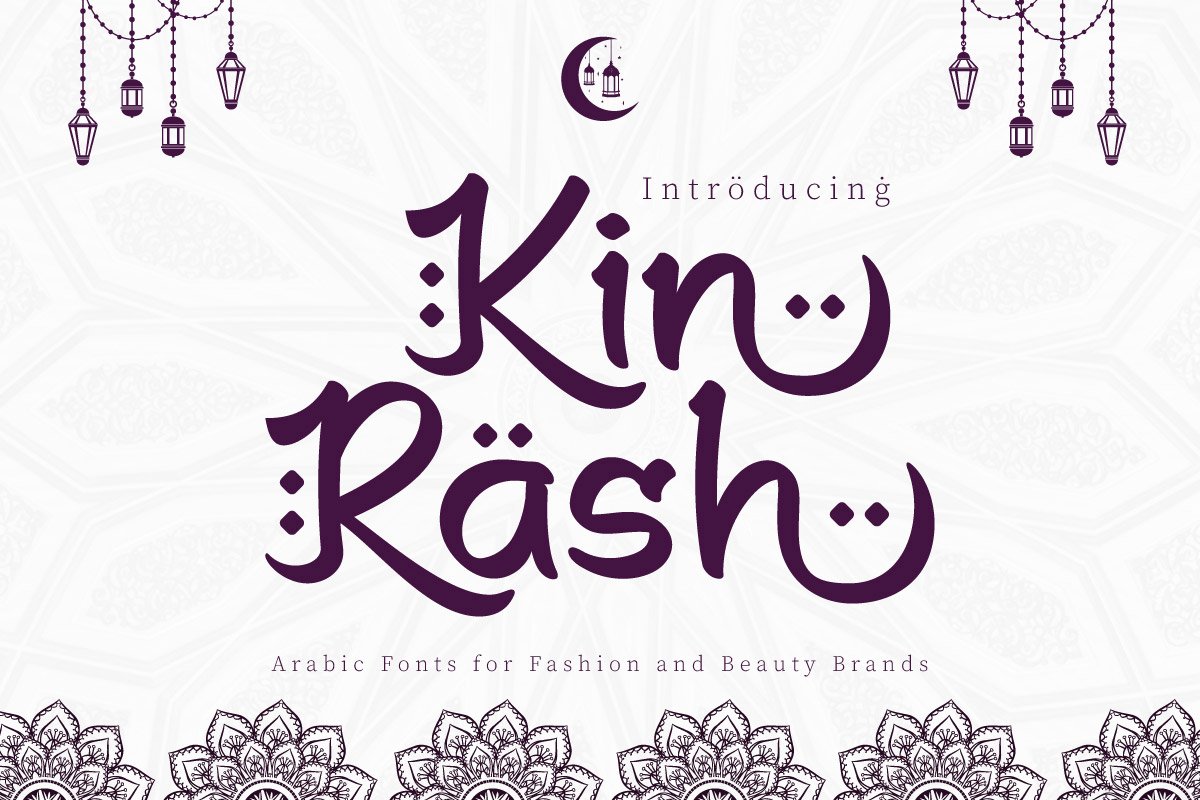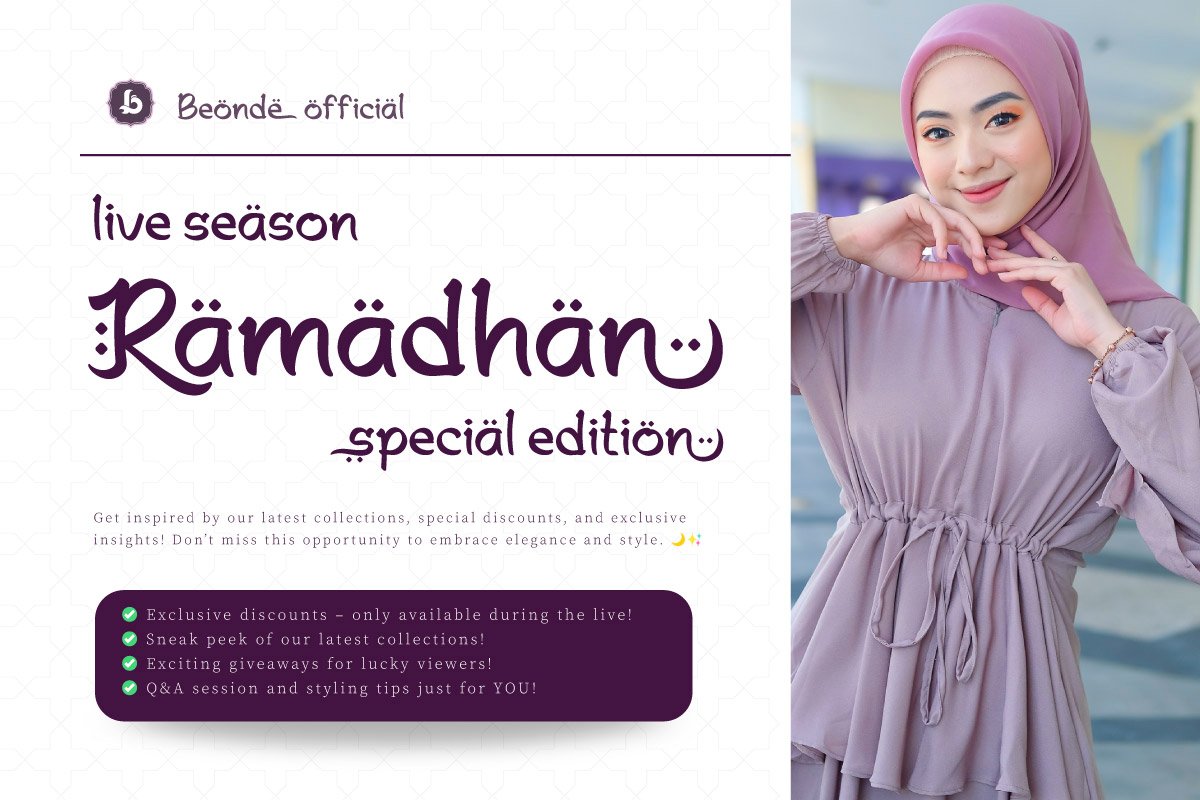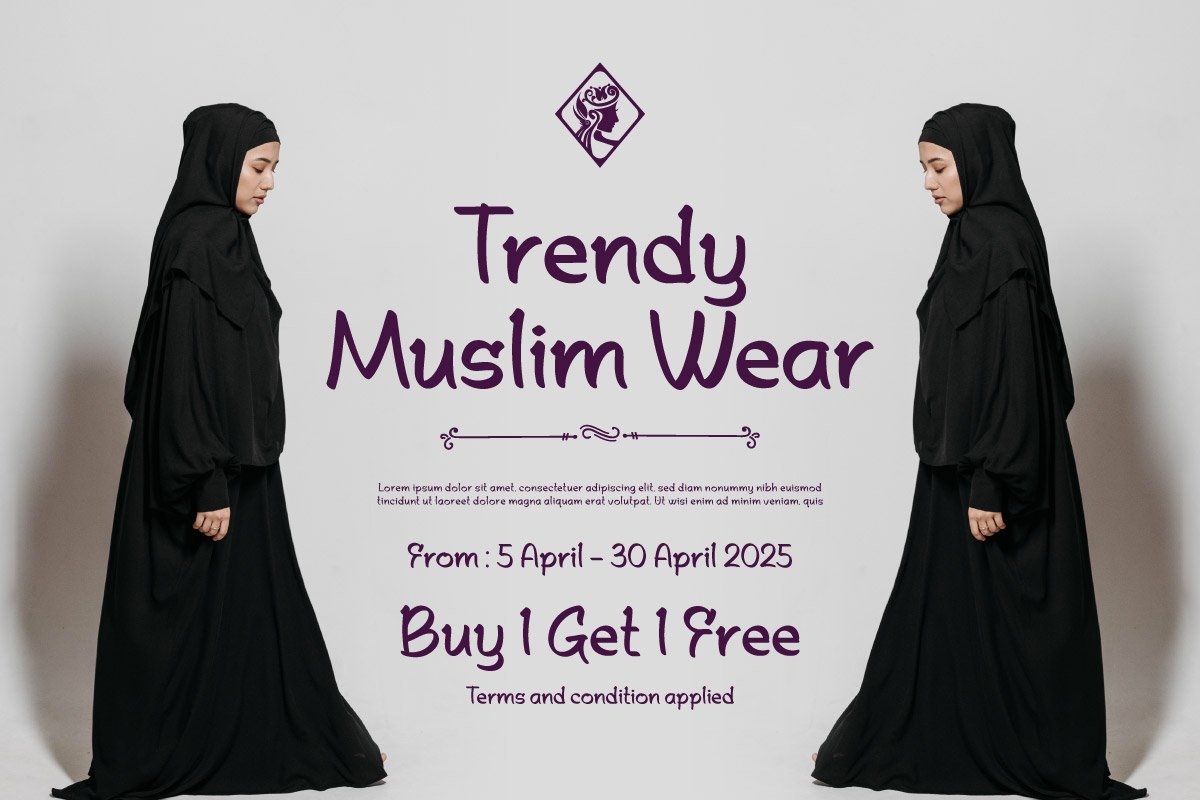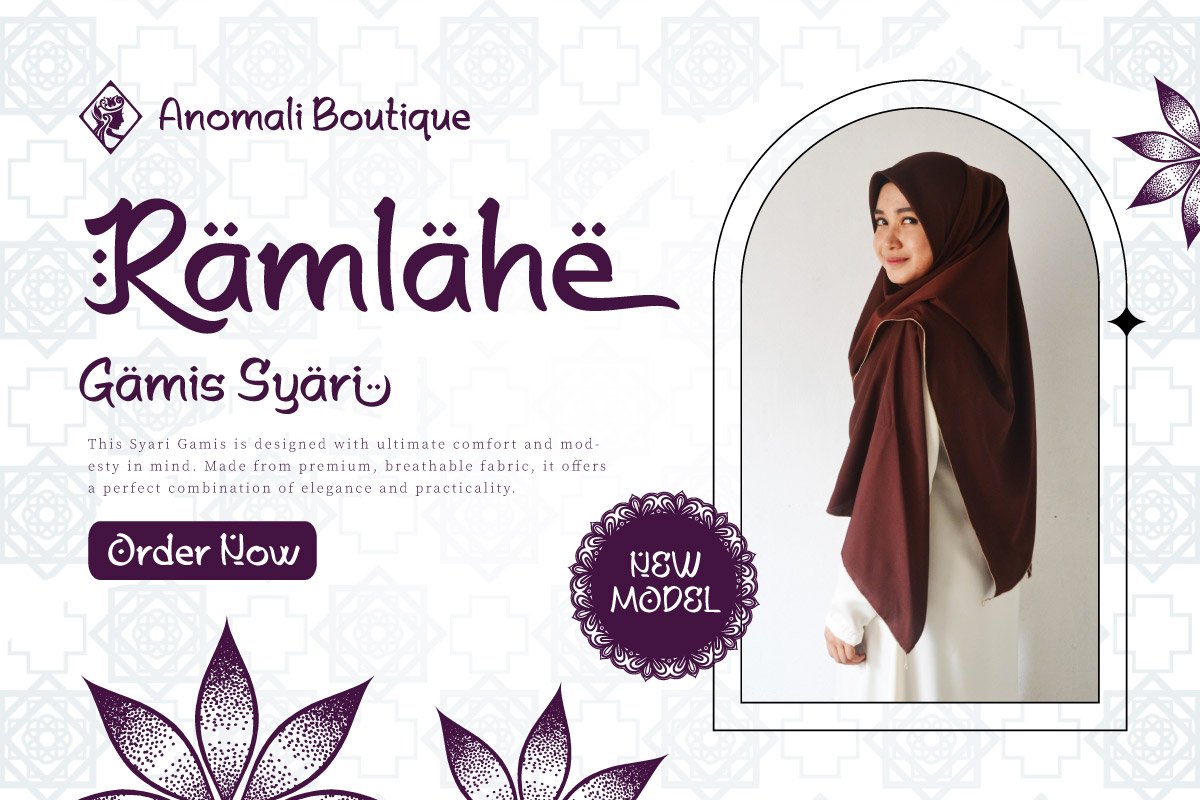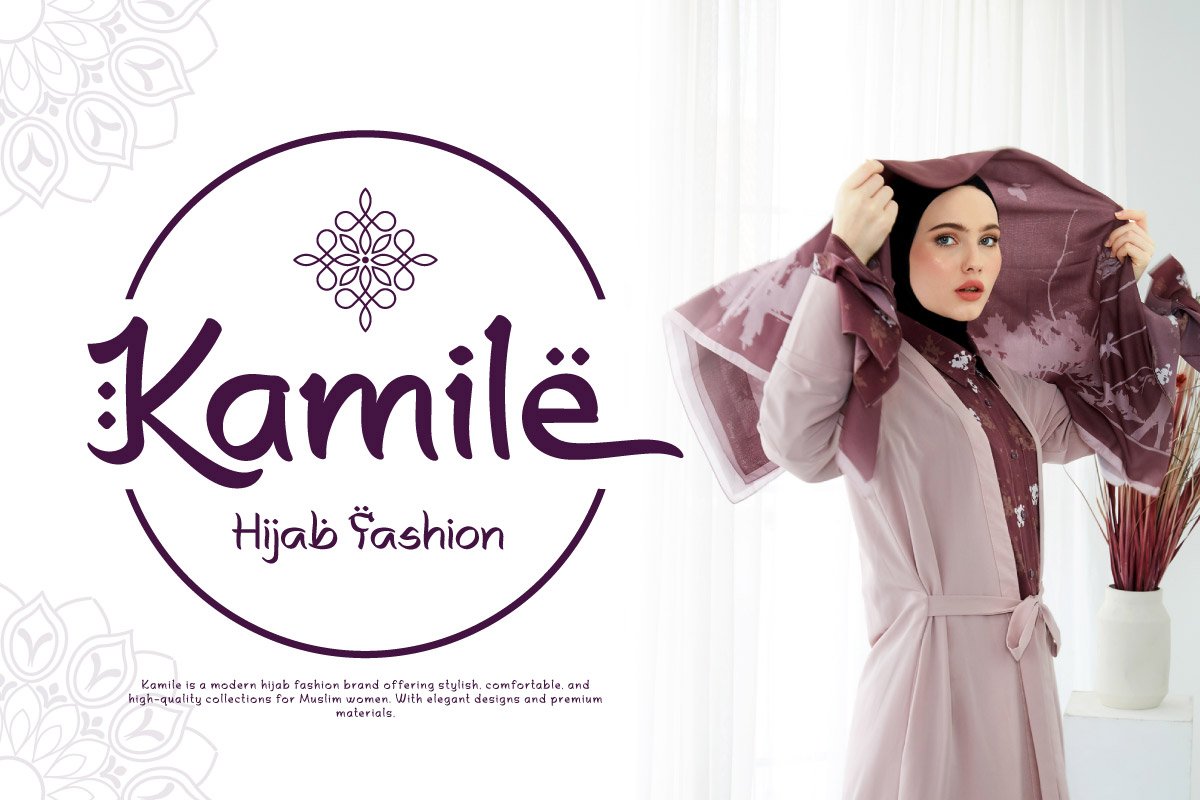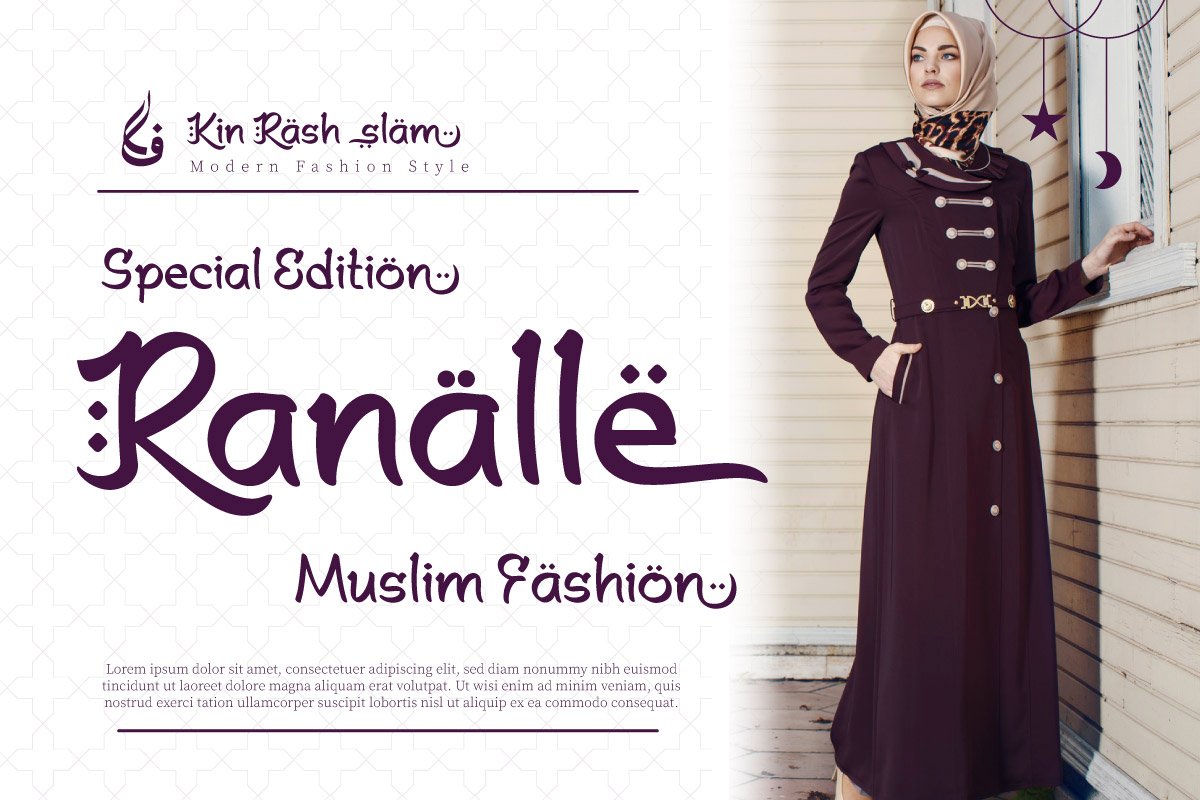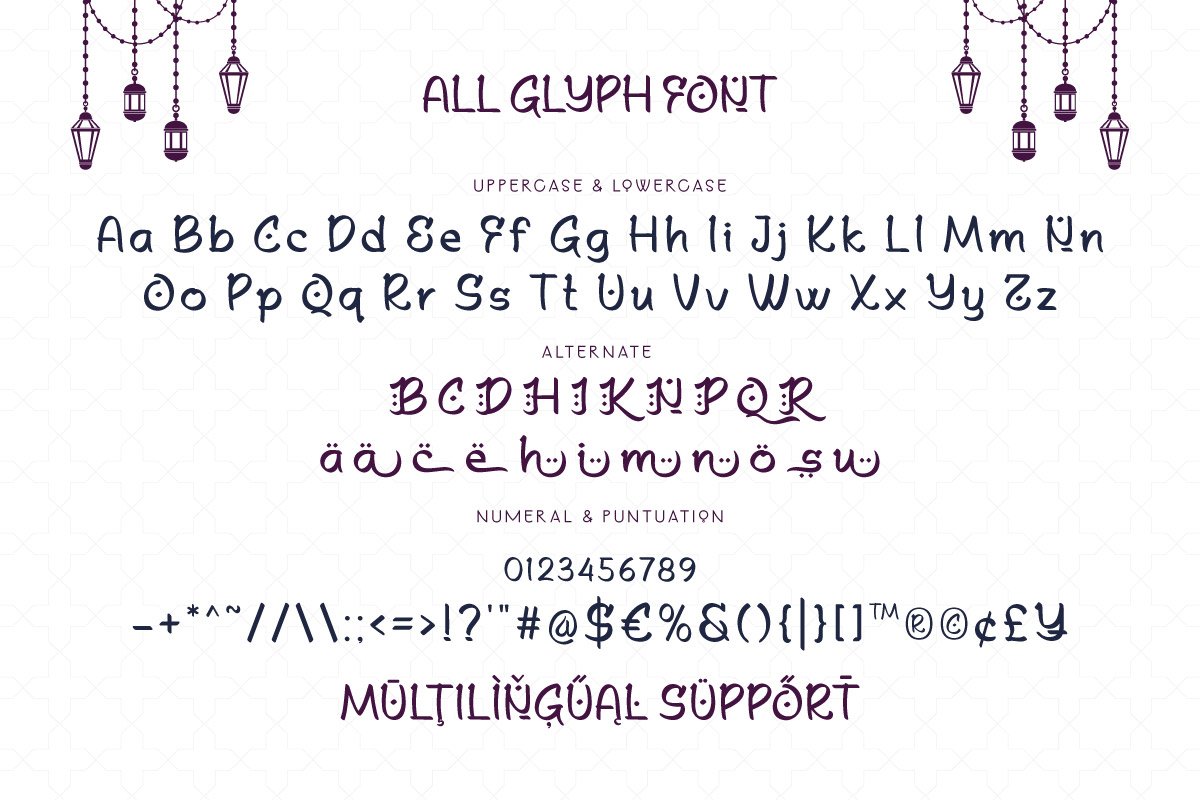
- Kin Rash – Arabic Font for Fashion and Beauty Brands
Kin Rash – Arabic Font for Fashion and Beauty Brands is an elegant and sophisticated typeface, created to blend traditional Arabic calligraphy with modern design aesthetics. Perfect for fashion labels, beauty products, and high-end brands, Kin Rash adds a touch of cultural richness and contemporary style. Its graceful curves and subtle details make it ideal for projects that want to convey luxury, elegance, and authenticity.
Elevate your fashion and beauty designs with Kin Rash and create a lasting impression with its unique Arabic-inspired charm.